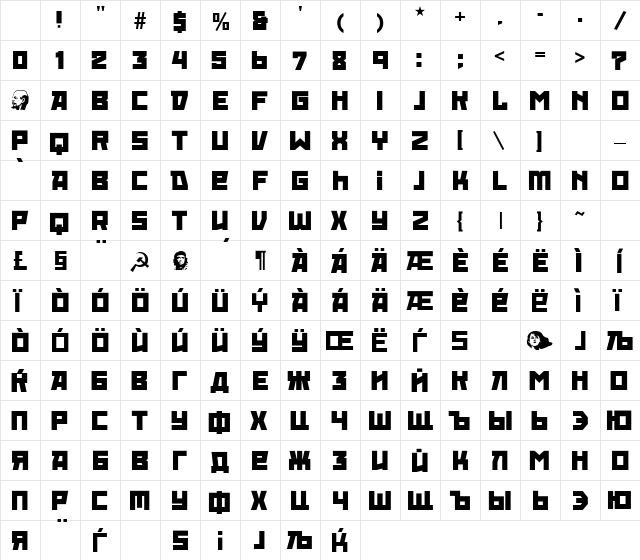
Complete Red October Fat glyph index. Displaying only characters natively supported by Red October Fat font.
Red October is a composed and adaptable typeface that performs quietly and consistently across a wide range of design contexts.